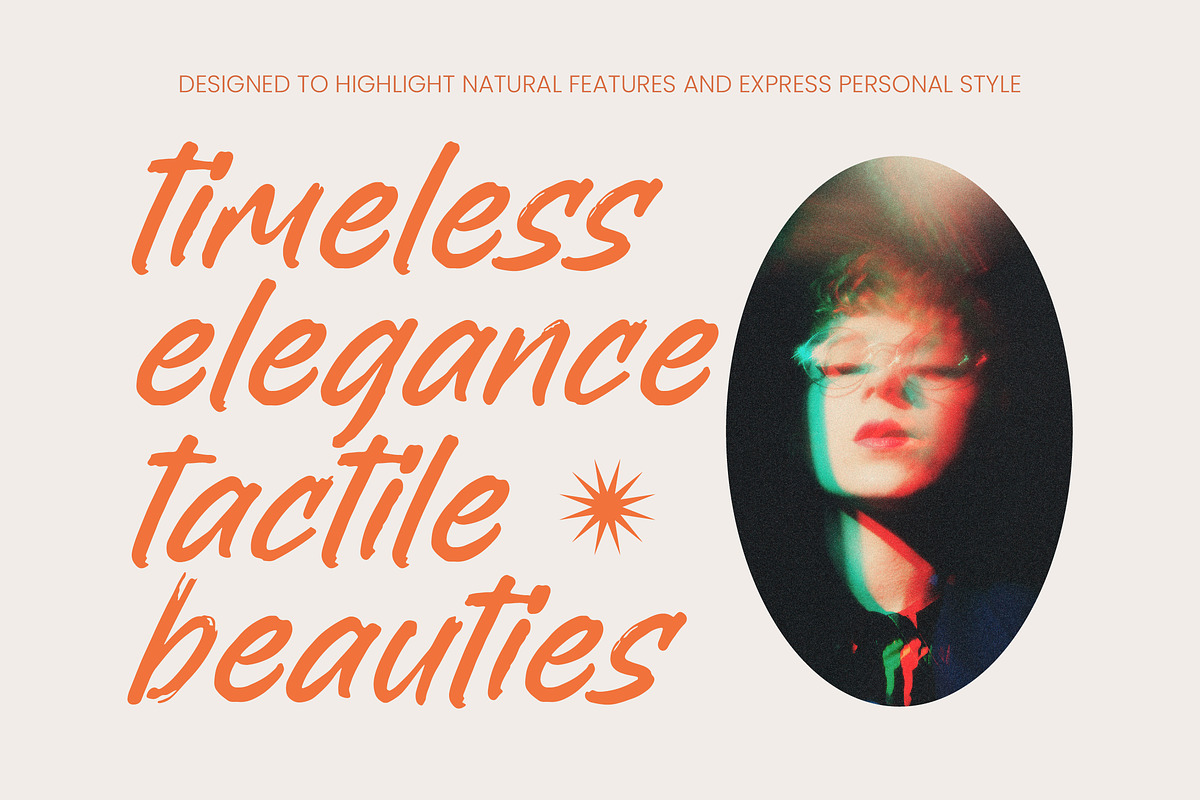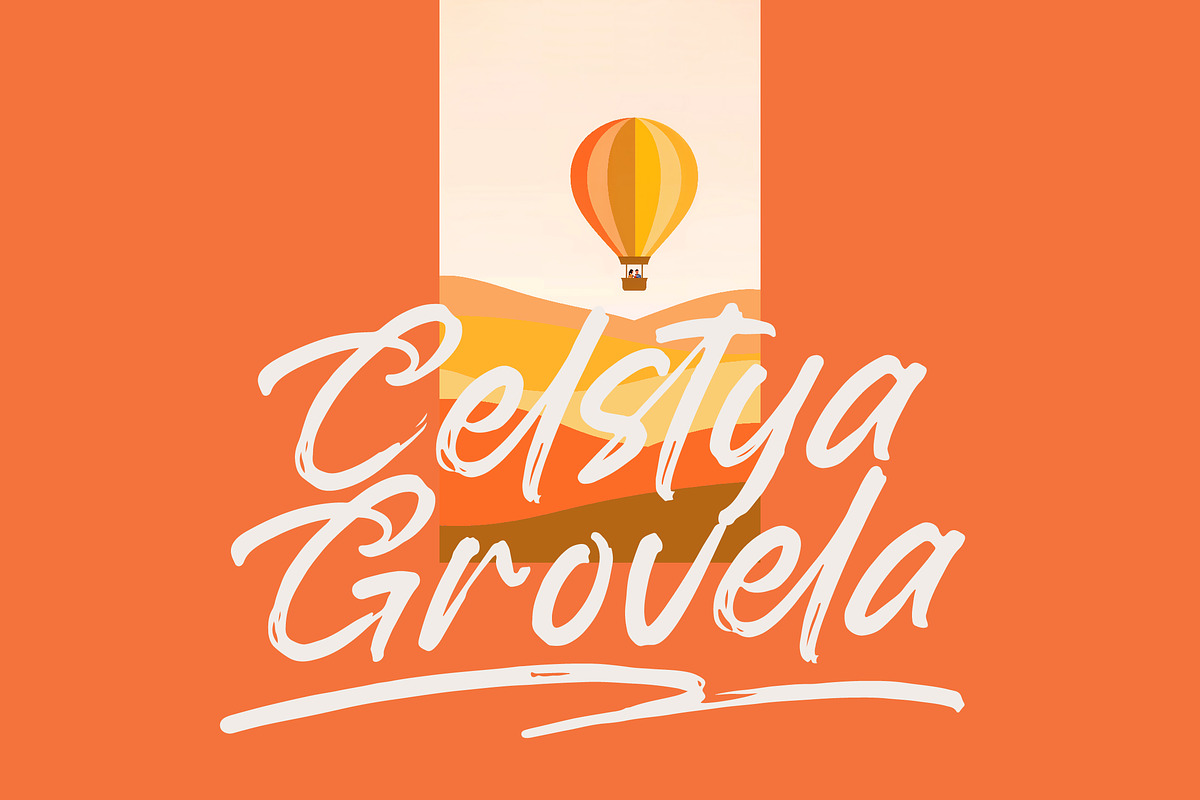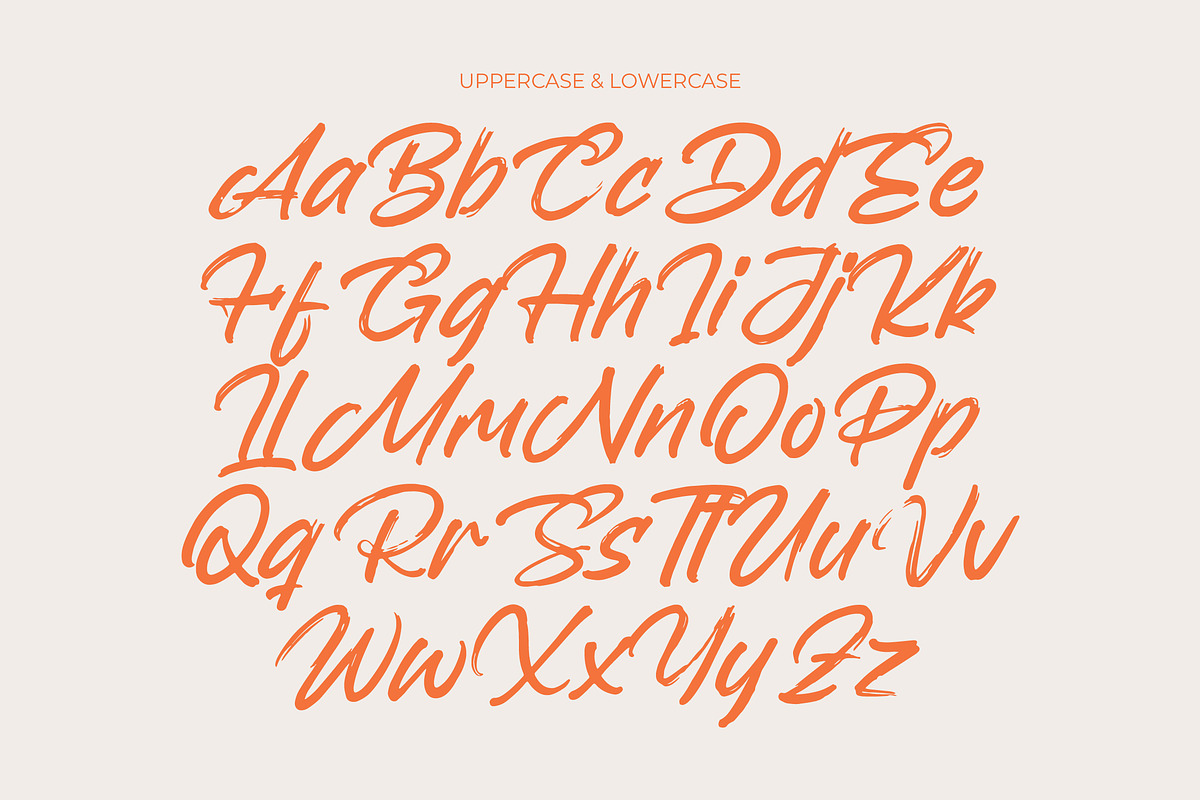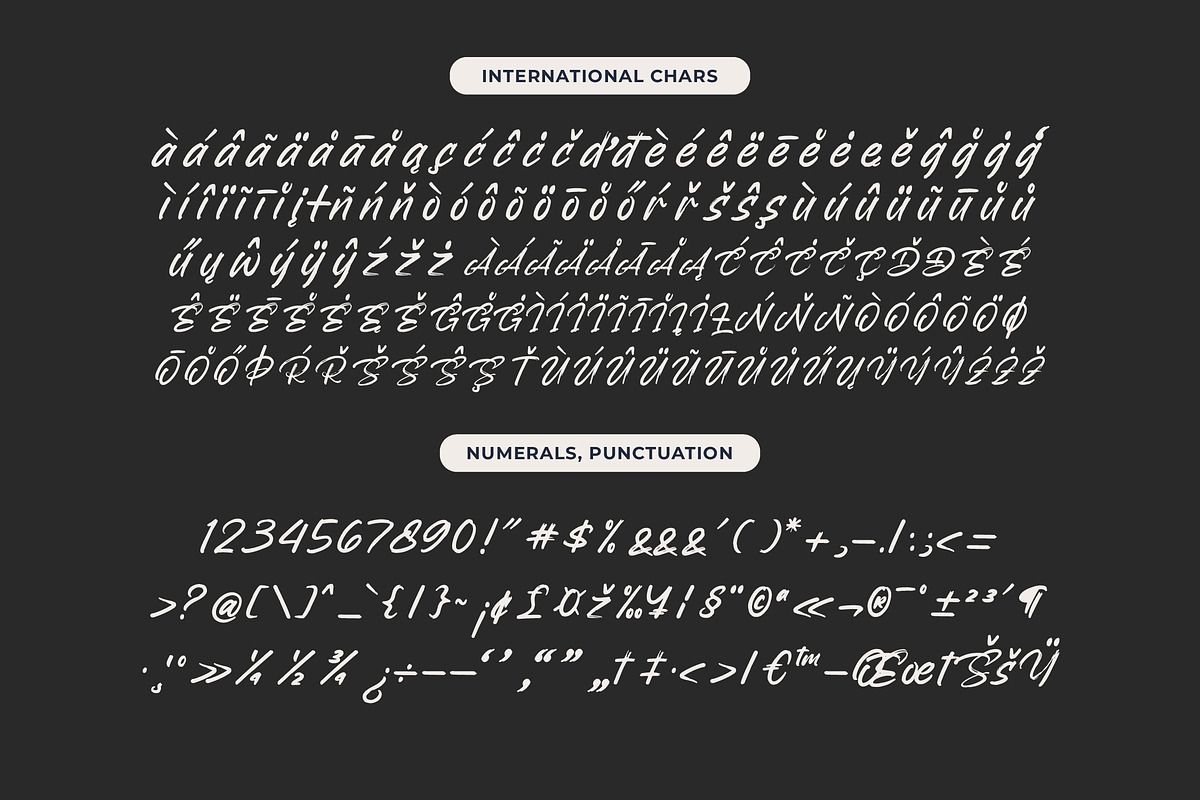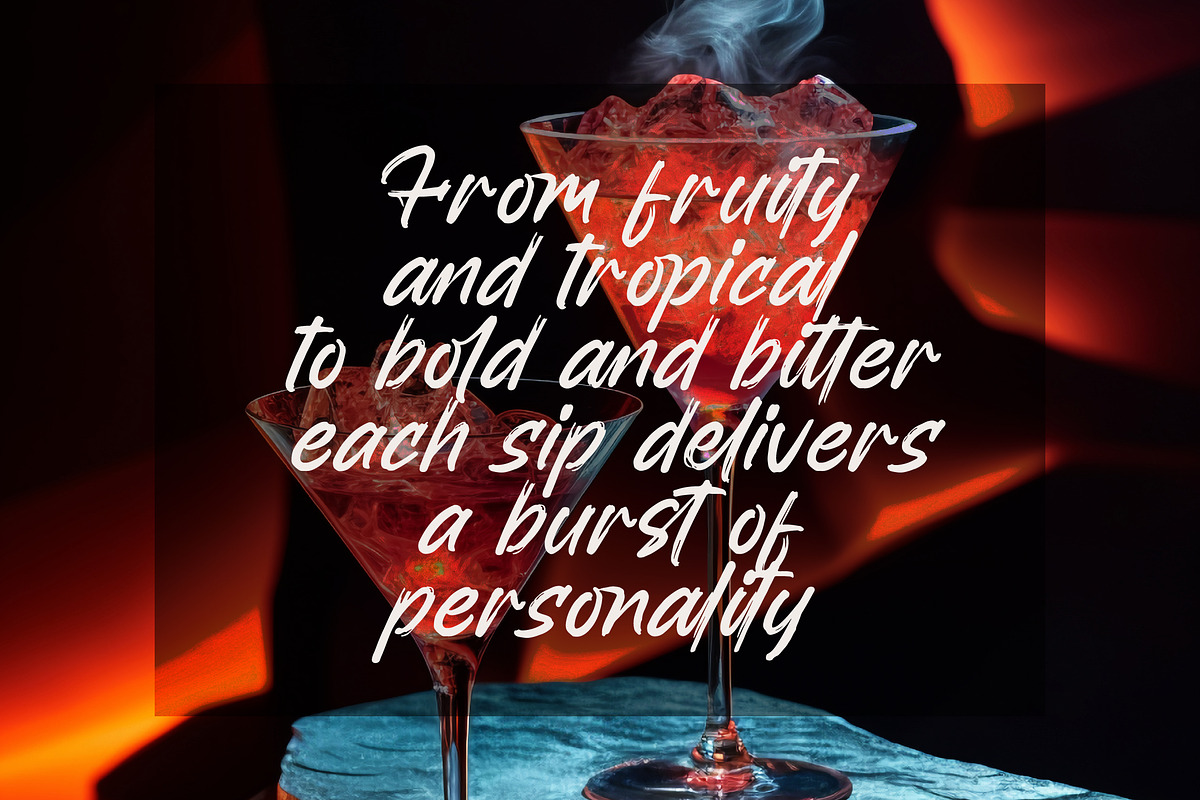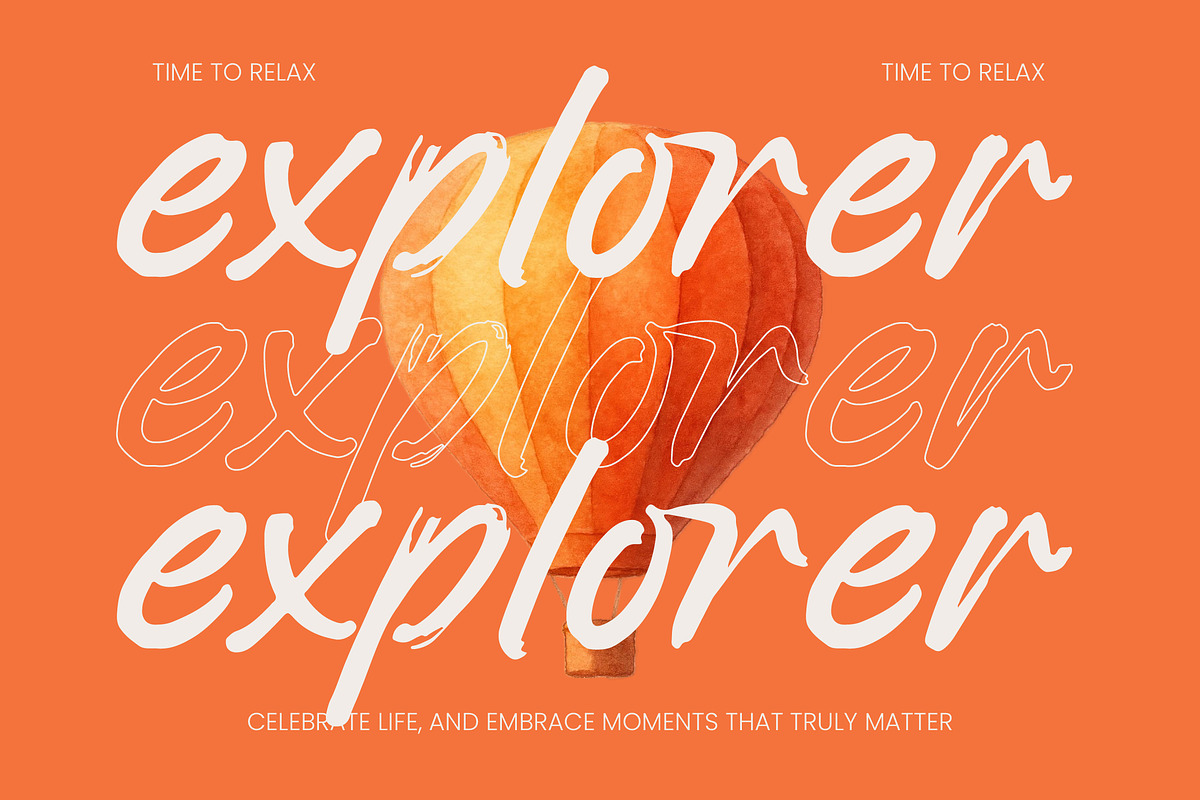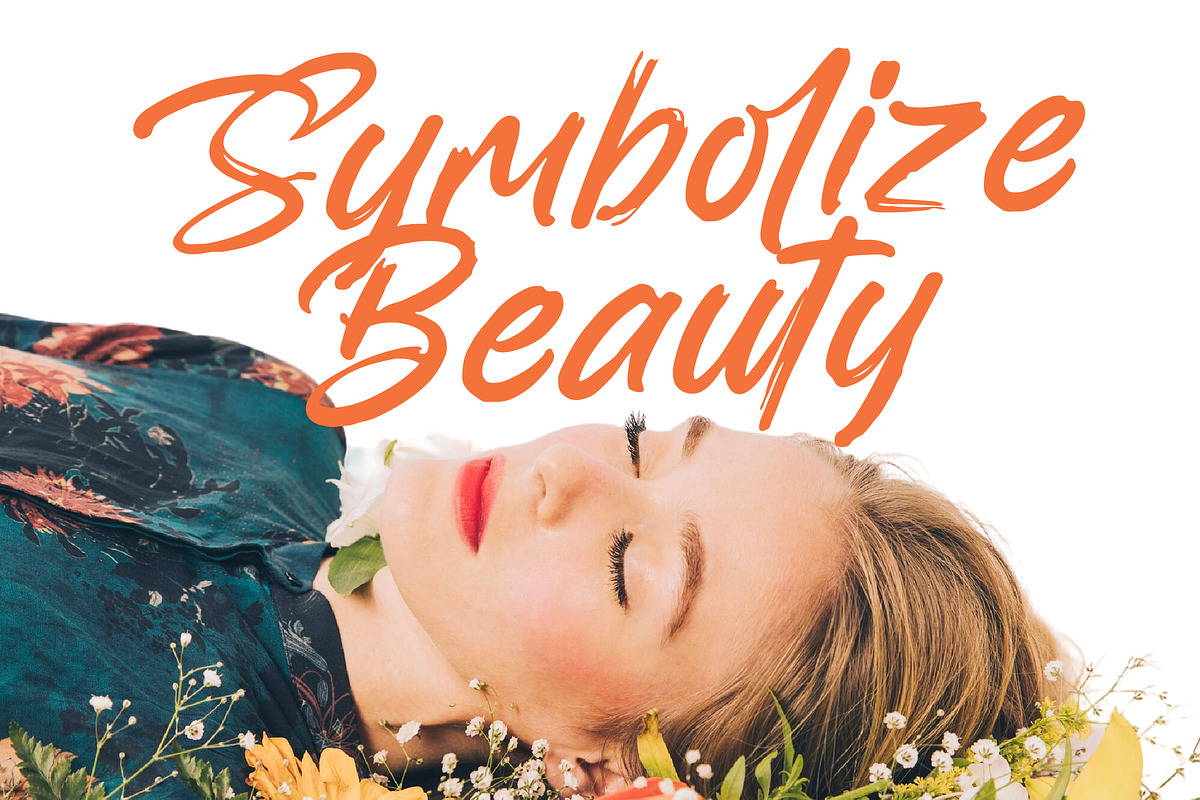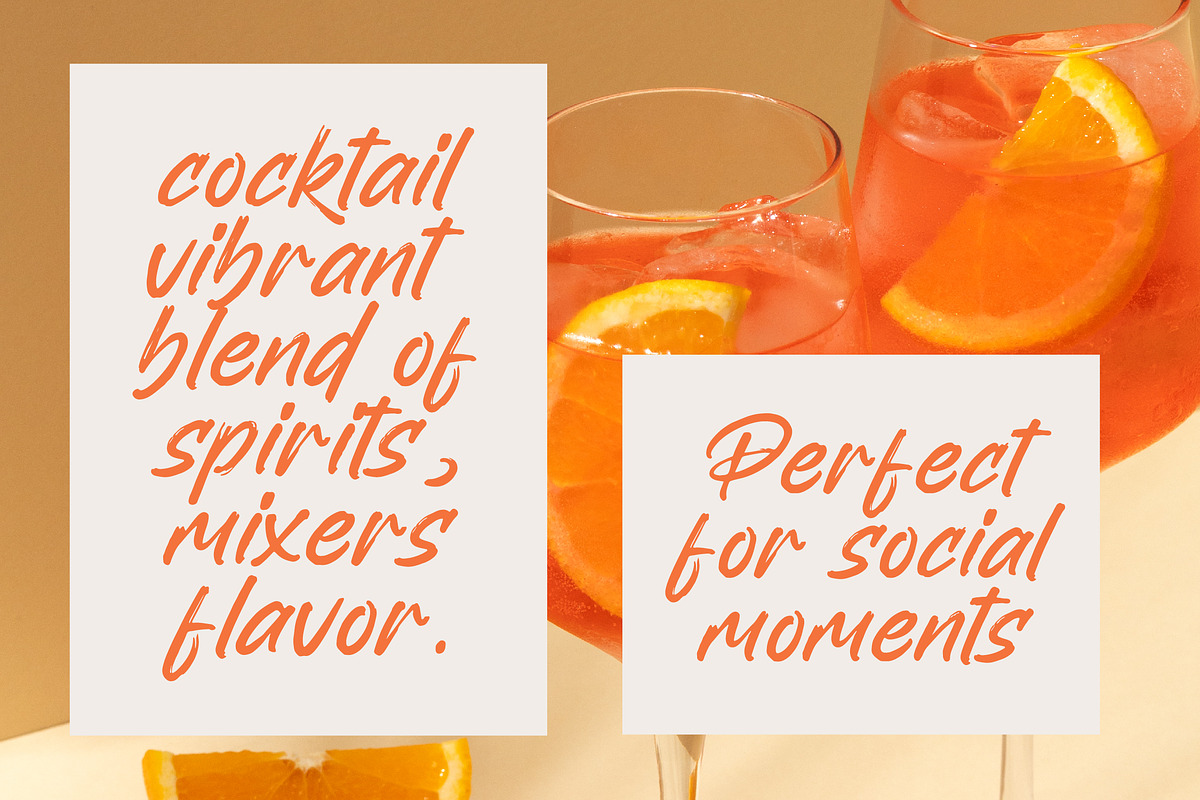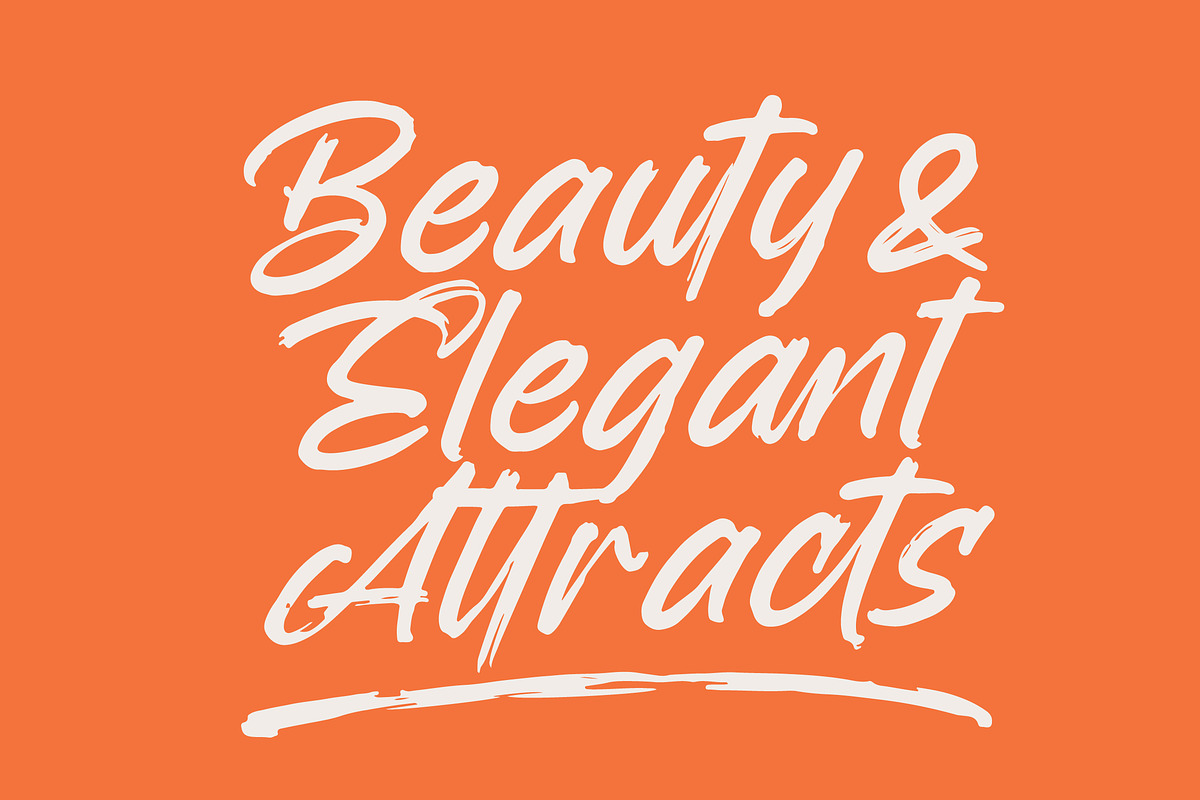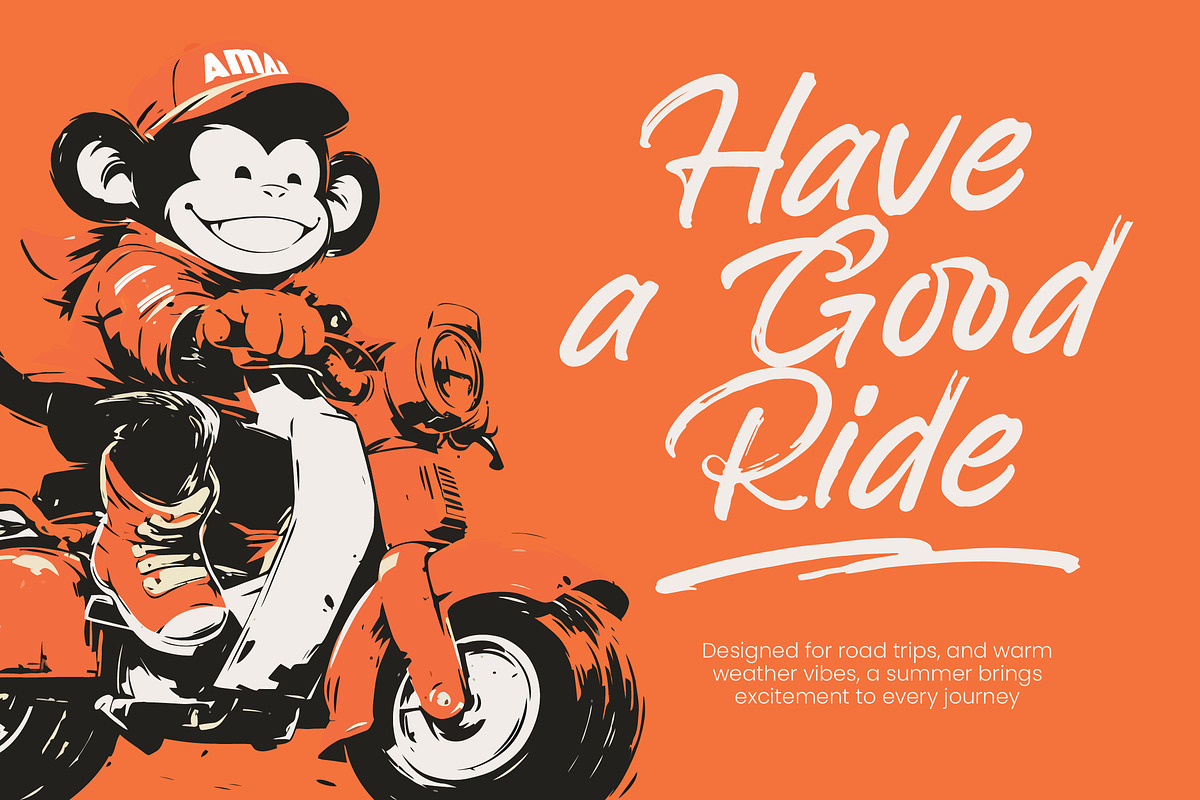
Backline Marker Texture Brush Font
Backline Marker - Texture Brush Font , from Letterena, is a Luxury Script font, suitable for any projects such as: logos, branding projects, homeware designs, product packaging, mugs, quotes, posters, shopping bags, t-shirts, book covers, name card, invitation cards, greeting cards, label, photography, watermark, special events, and all your other luxury and beautiful projects that need a Luxury Script taste.
- 75 Ligature 30 Alternate & 8 Swashes